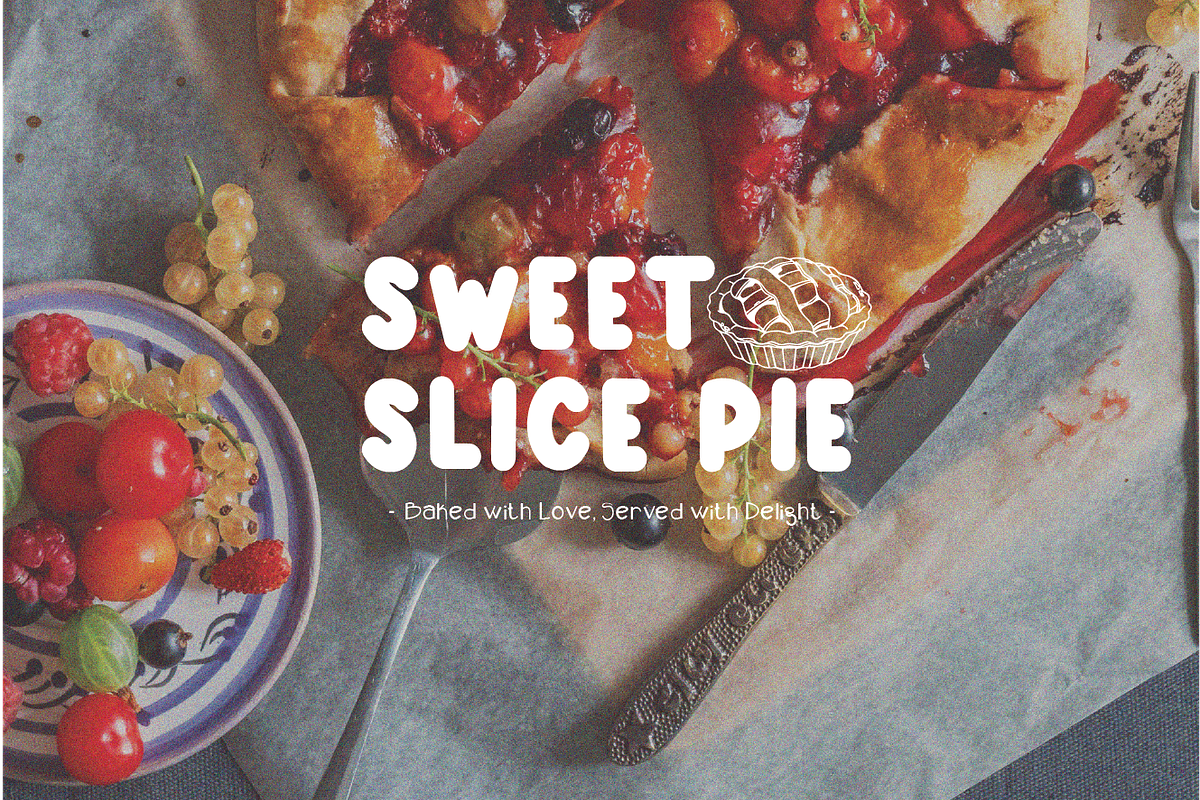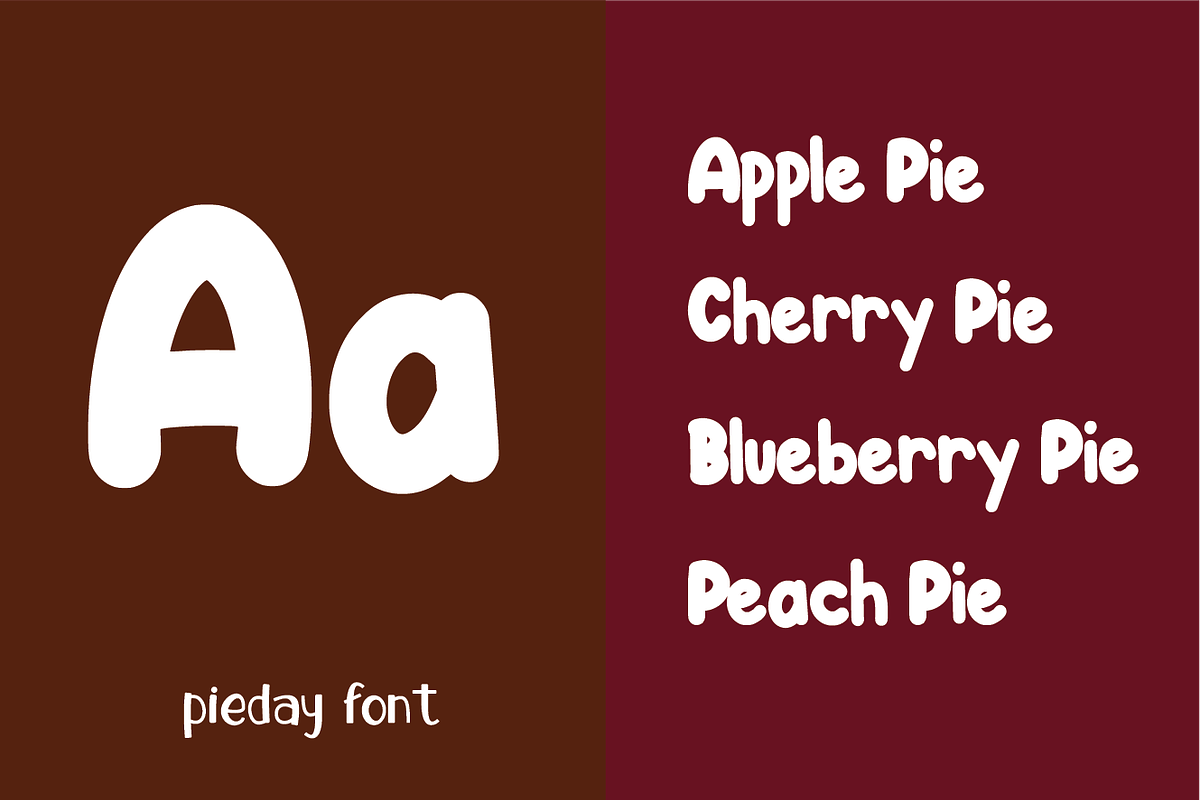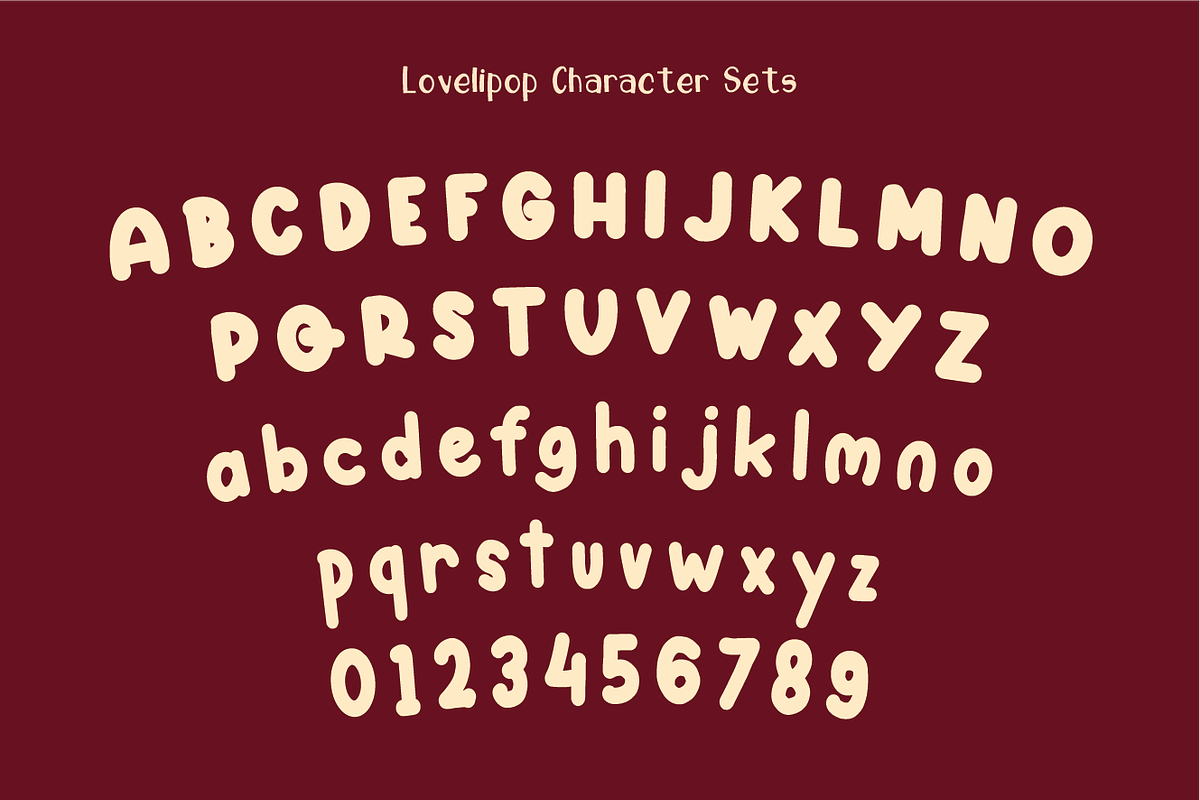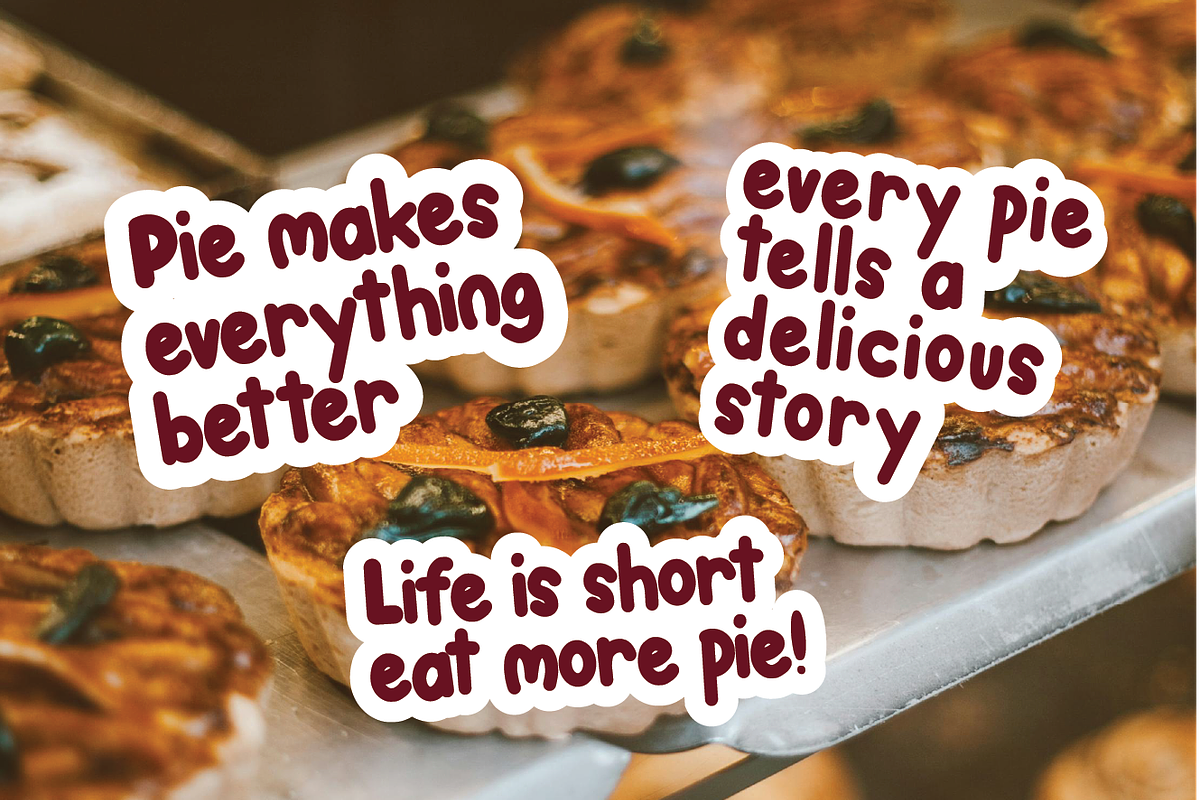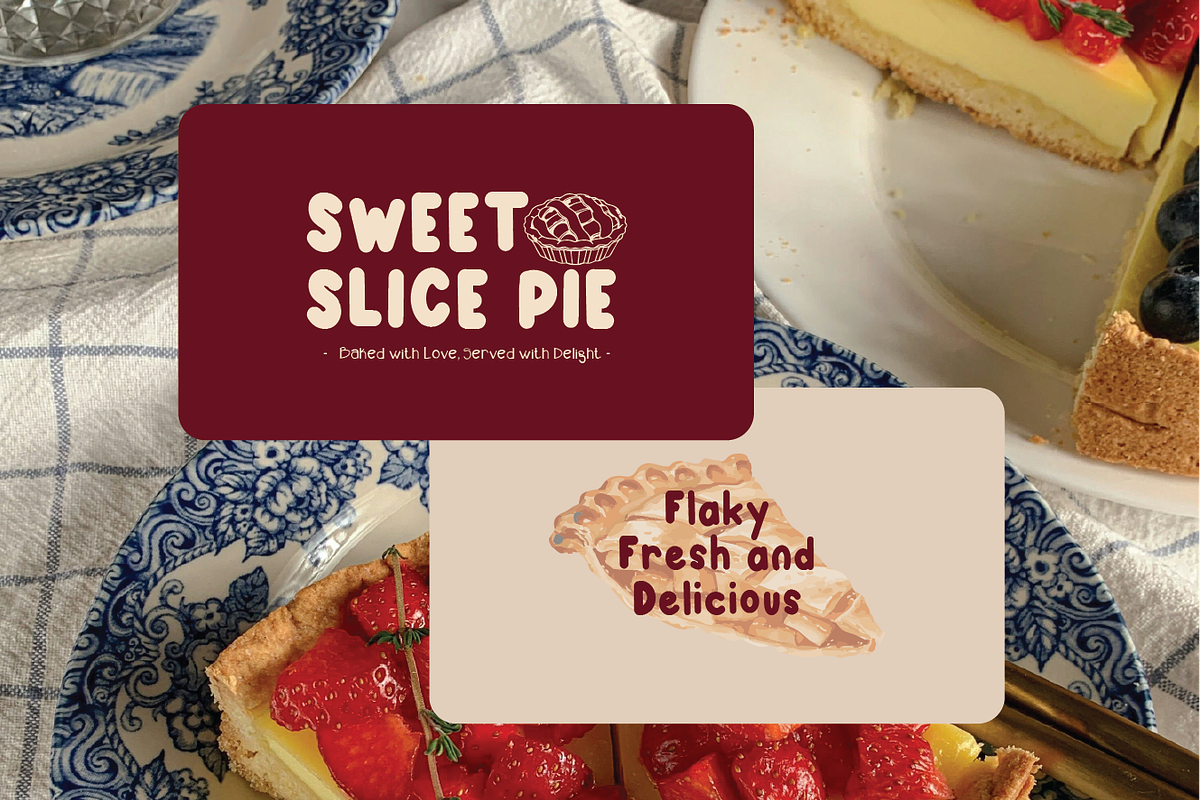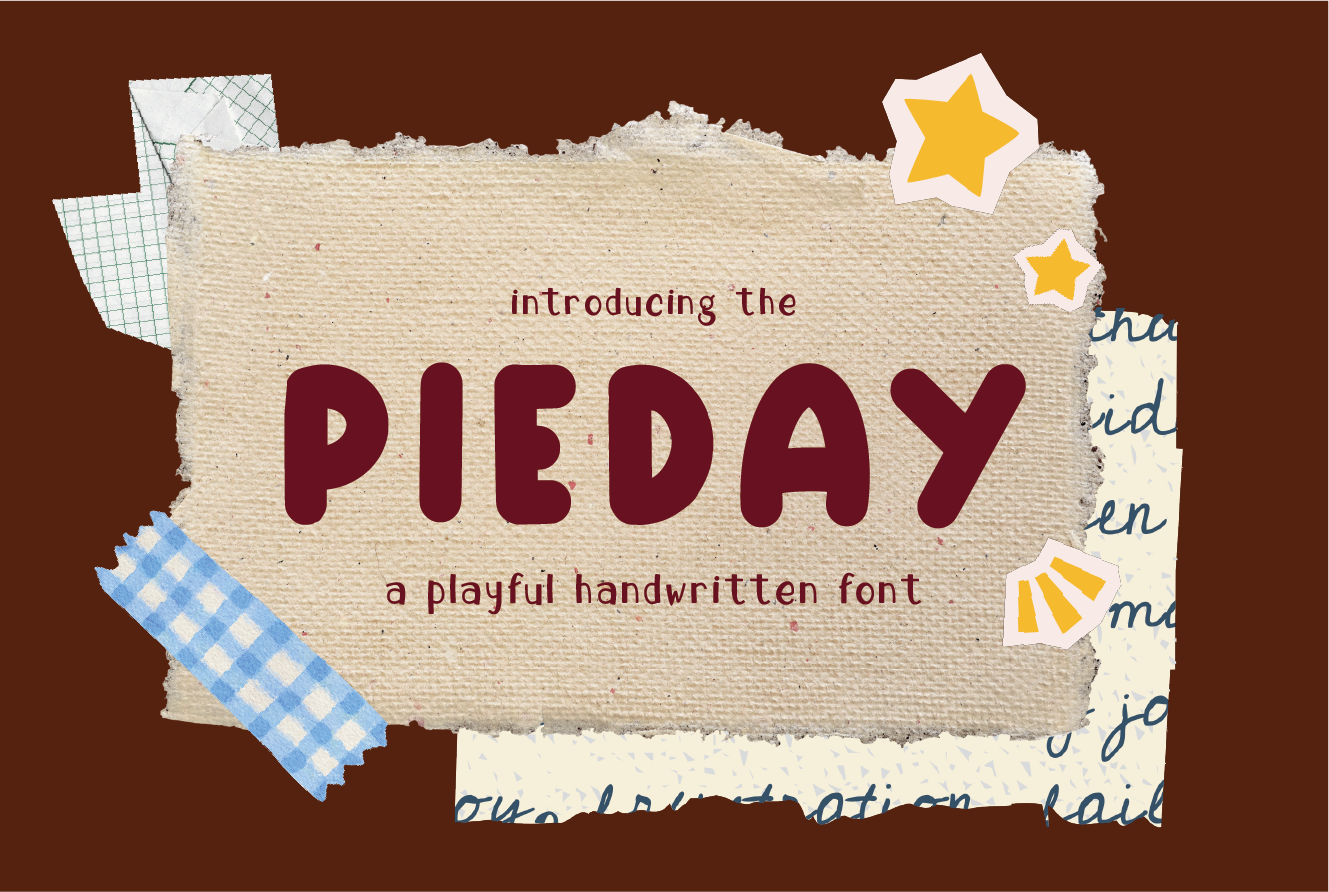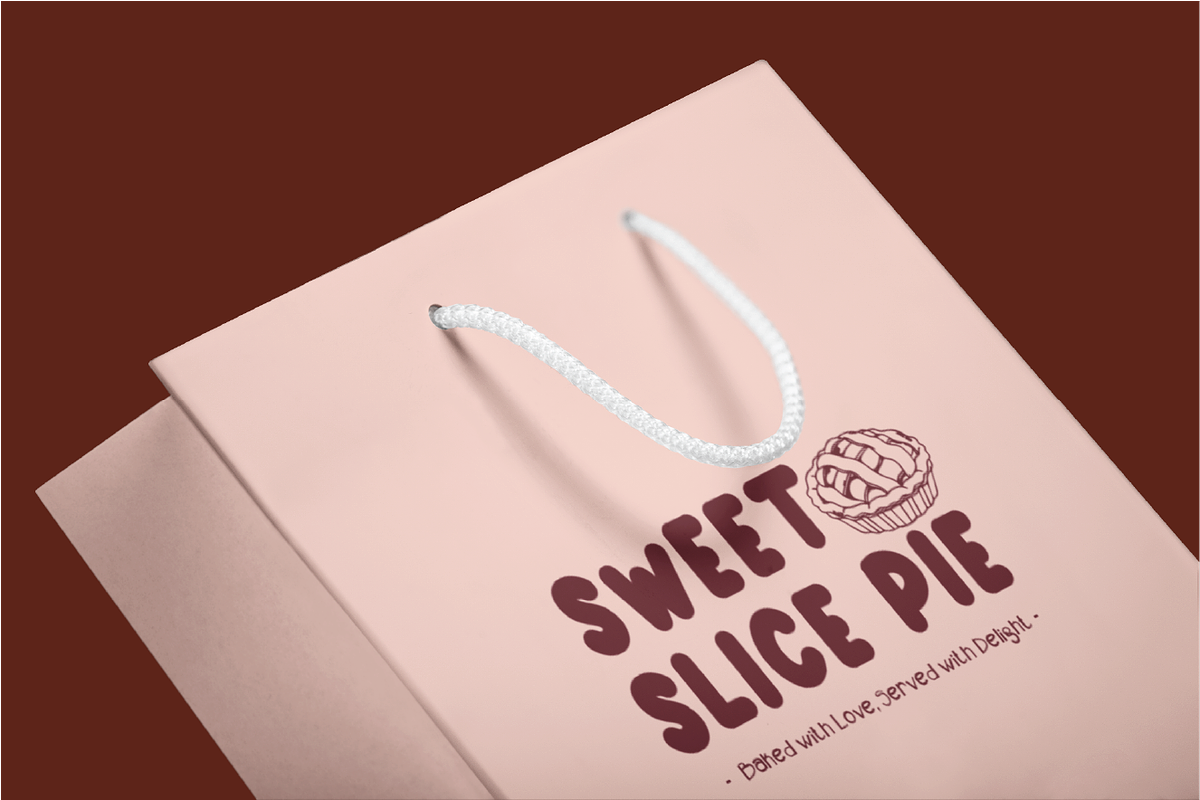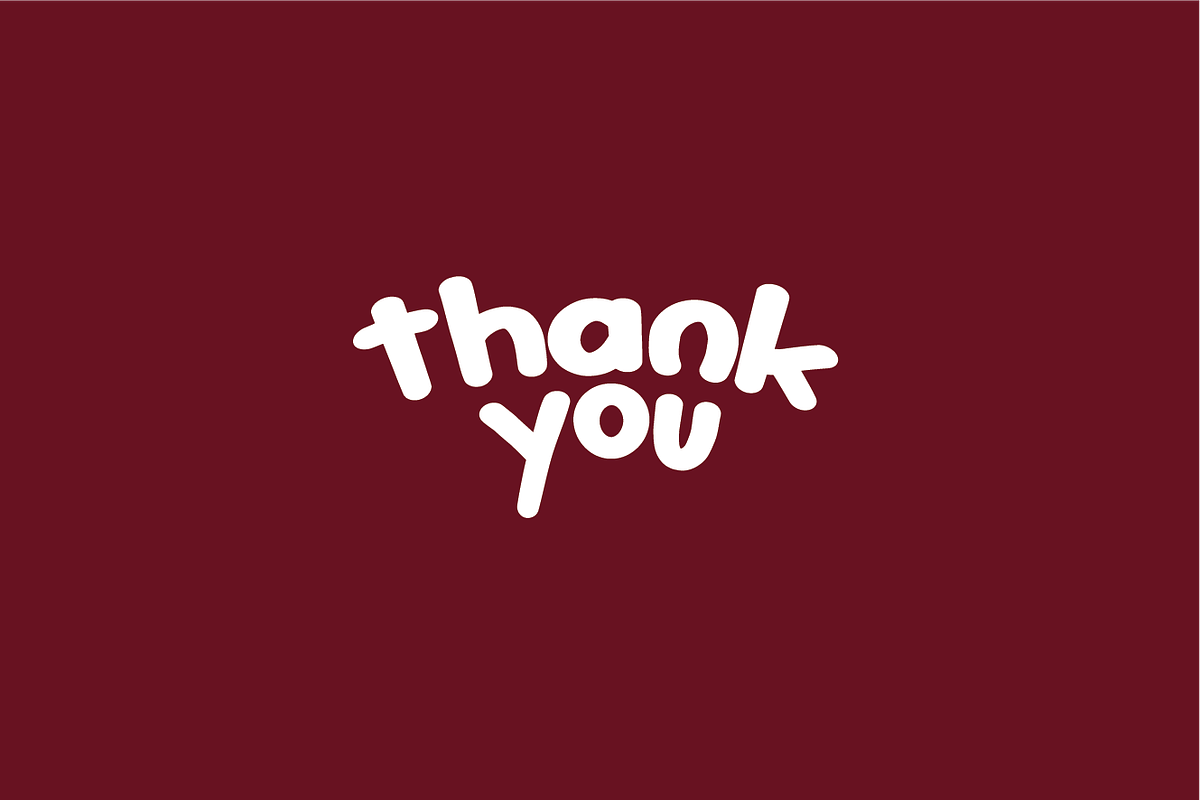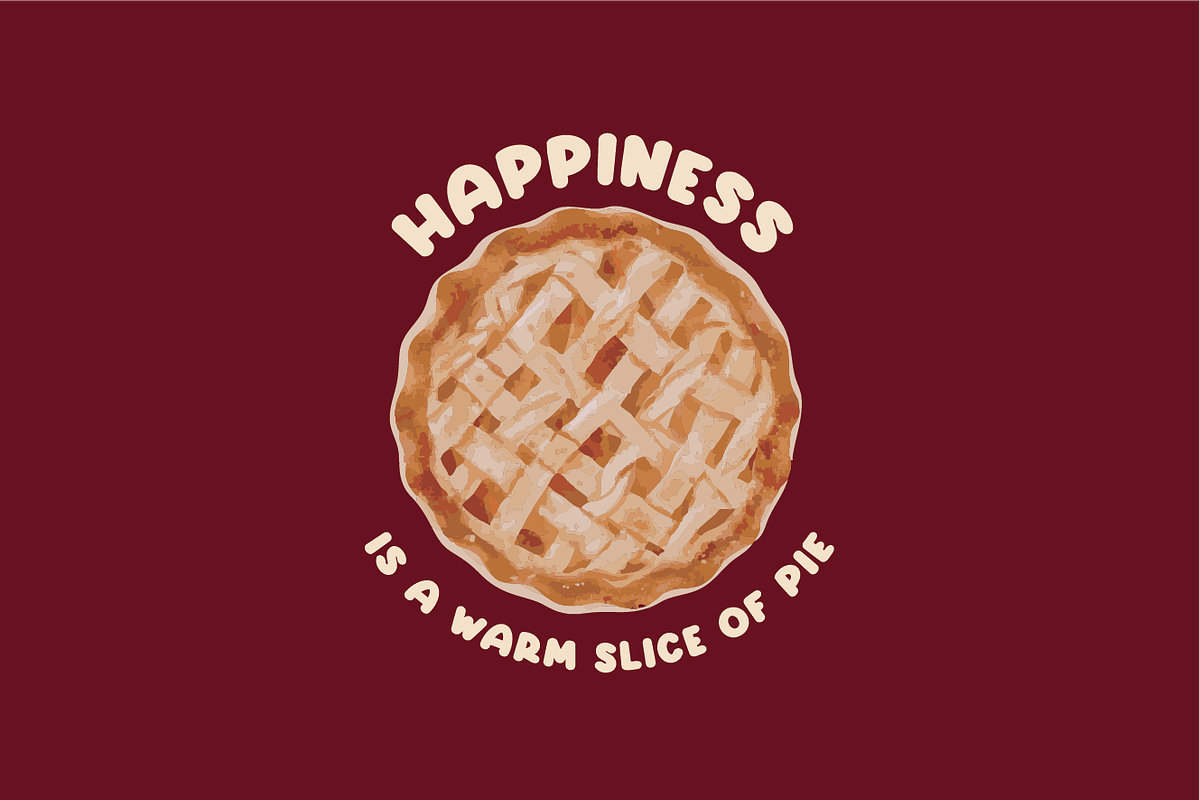
Pieday - Playful Handwritten Font
Pieday The font has a bold, chunky design with rounded edges, giving it a friendly and approachable look. The thick letterforms exude strength and playfulness, making it ideal for designs that need a fun, youthful, and impactful appearance.
- Numbers, marks and symbols